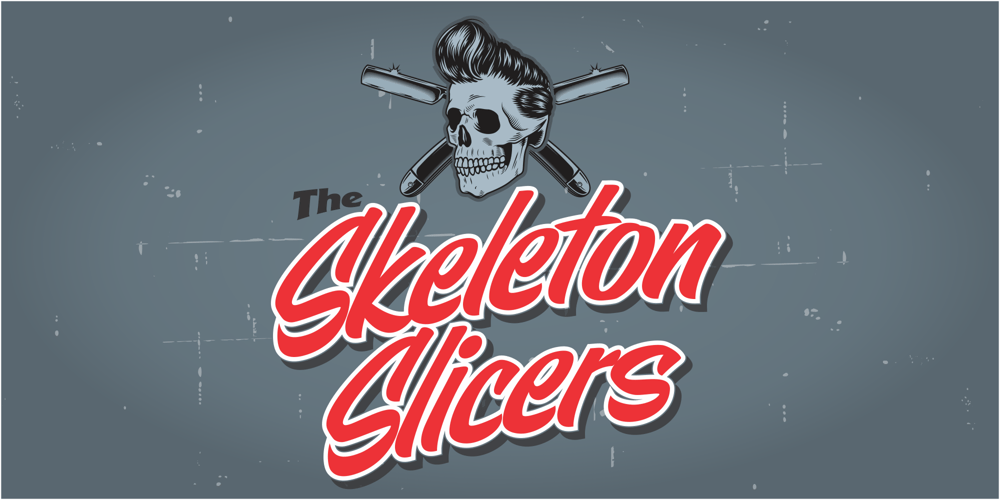
Flick Casual Font Family was designed by Jeff Marshall and published by Jeff Marshall. Flick Casual contains 1 styles and family package options. This hand-lettered italic casual is another versatile font produced by Jeff Marshall, aptly named “Flick” due to its off the brush casual feel. This style was a work horse back in the day where it was used on cafe menu boards through to regulation lettering on trucks and aircraft.